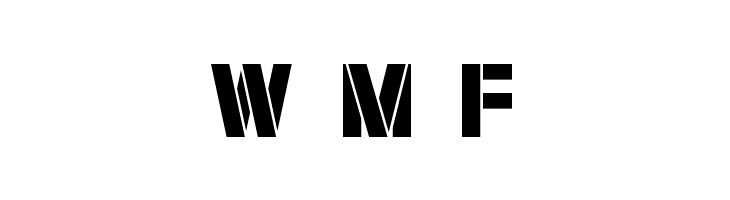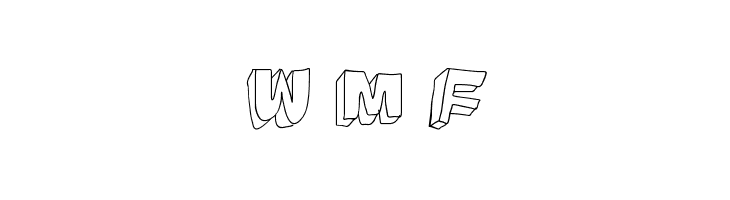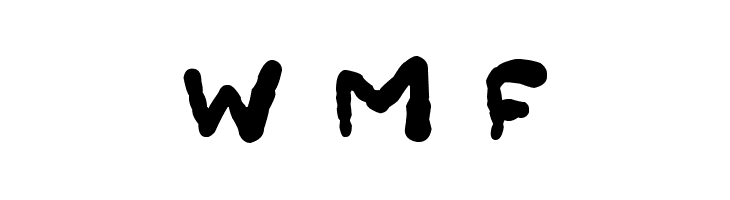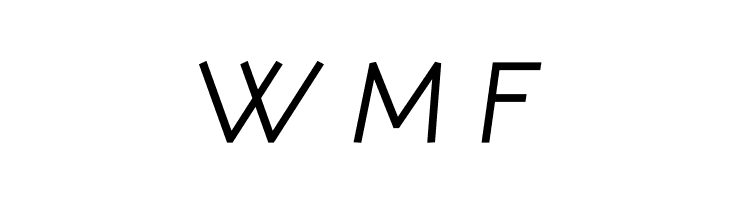
• Classyday
A playful, handwritten font with fluid strokes and a casual elegance.
• Clementine
( Fonts by Jason Arthur - JibbaJabba Fonts - www.myspace.com/jasonarthurloaded )
A playful, handwritten-style font with consistent strokes and rounded edges.
• Clementine Bold Italic
( Fonts by Jason Arthur - JibbaJabba Fonts - www.myspace.com/jasonarthurloaded )
A bold, italic font with a dynamic and modern style.
• Clementine Expanded Regular
( Fonts by Jason Arthur - JibbaJabba Fonts - www.myspace.com/jasonarthurloaded )
A bold, handwritten-style font with smooth curves and an expanded width.
• Clementine Italic
( Fonts by Jason Arthur - JibbaJabba Fonts - www.myspace.com/jasonarthurloaded )
A playful, handwritten-style italic font with smooth curves and consistent strokes.
• Clingy
A bold, playful font with rounded edges and a slightly condensed style.
• Cloudheads
( Darrell Flood )
A bold, playful, hand-drawn font with rounded, irregular characters.
• CLUB
( Fonts by Fabrika De Typos - Marcio Hirosse - fabrikadetypos.blogspot.com )
A bold, geometric font with a modular and modern design.
• ClubHouse
A playful, 3D cartoon-style font with thick outlines and a hand-drawn look.
• Coamei Bold-Italic
( Jef Triforce - Francisco Arellano - www.ixipcalli.com )
A modern, bold italic sans-serif font with a sleek and dynamic style.
• Coamei Light-Italic
( Jef Triforce - Francisco Arellano - www.ixipcalli.com )
A modern, light, and italic font with clean lines and elegant curves.
• Coamei Regular-Italic
( Jef Triforce - Francisco Arellano - www.ixipcalli.com )
A sleek, modern italic font with consistent stroke width and elegant curvature.
• Coburn Regular
• Cockroach
( Fonts by www.junkohanhero.com )
A bold, graffiti-inspired font with a playful and edgy style.
• Coelacanth
A classic serif font with a hand-crafted, elegant style.
• Coelacanth Bold
A bold serif font with elegant curves and strong strokes.
• Coelacanth Caption